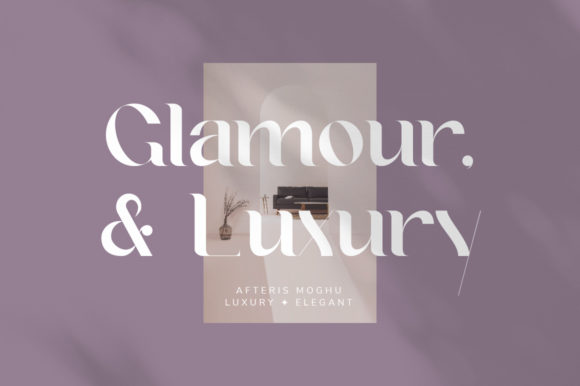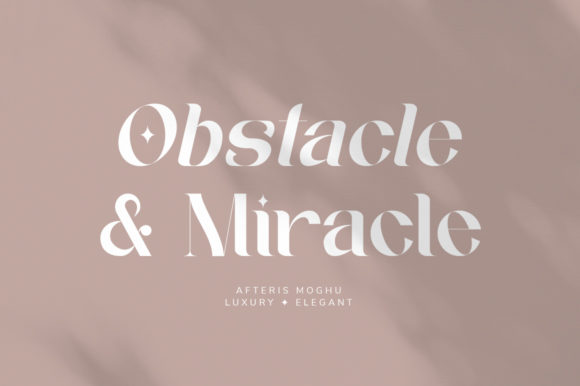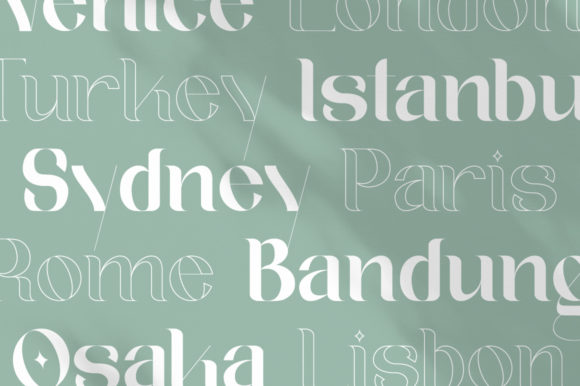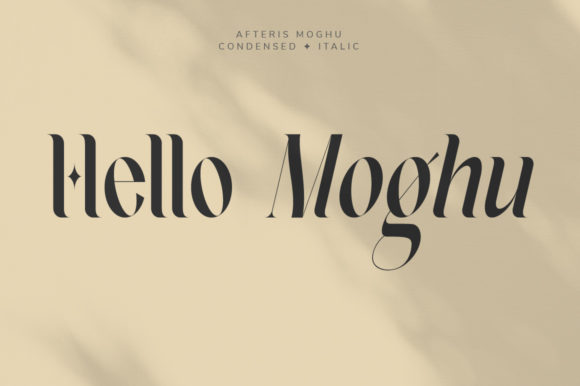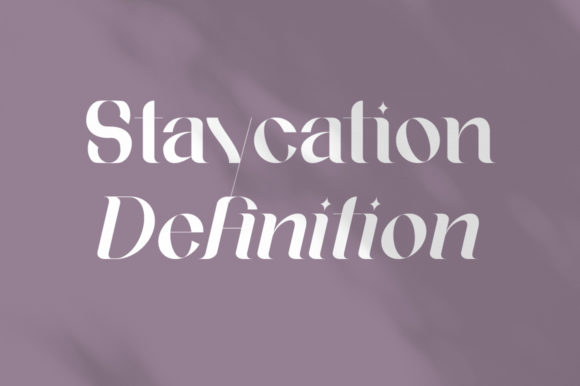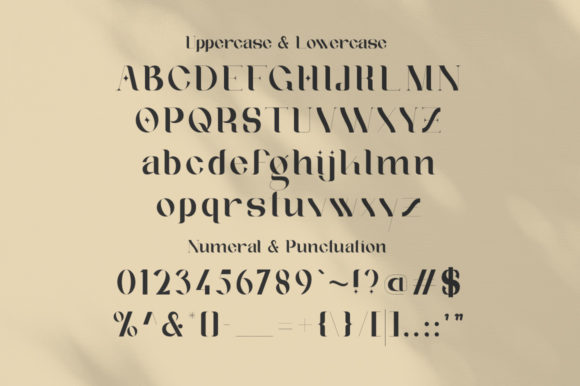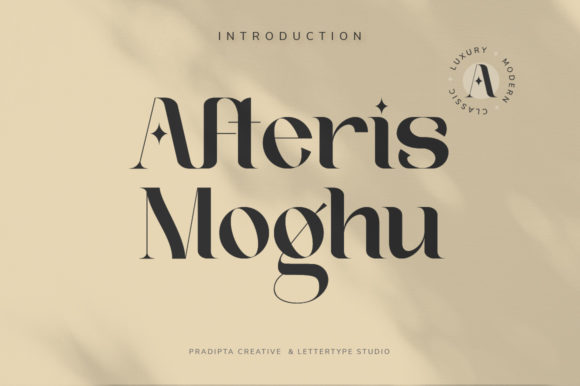
Introducing Afteris Moghu: The Luxurious Modern Serif Font
In the world of typography, a font can make or break a design. For crafters and designers looking to add a touch of luxury and sophistication to their creations, Afteris Moghu is a game-changer. This modern serif font is imposing, featuring uniquely shaped letters that effortlessly elevate any project to new heights. In this article, we’ll dive into the world of Afteris Moghu, exploring its features, benefits, and uses.
The Distinctive Characteristics of Afteris Moghu
Afteris Moghu is a masterclass in modern serif font design. Its luxurious feel is instantly apparent, with each letter boasting a unique shape that sets it apart from more traditional fonts. The serifs are carefully crafted, adding a touch of elegance and refinement to any text. Whether you’re working on a branding project, a website, or a print design, Afteris Moghu’s distinctive characteristics make it an excellent choice.
Why Choose Afteris Moghu?
So, what sets Afteris Moghu apart from other fonts on the market? Here are just a few reasons why designers and crafters are falling in love with this luxurious font:
- Unparalleled versatility: Afteris Moghu’s unique shape and luxurious feel make it suitable for a wide range of projects, from high-end branding to elegant wedding invitations.
- Ease of use: Despite its complex appearance, Afteris Moghu is surprisingly easy to use, even for those without extensive design experience.
- High-quality design: Each letter has been carefully crafted to ensure a high level of quality, making it perfect for both digital and print applications.
Exploring the Benefits of Afteris Moghu
Afteris Moghu offers a range of benefits for designers and crafters. Here are just a few:
- Add a touch of luxury: With Afteris Moghu, you can instantly elevate your designs and add a touch of sophistication.
- Stand out from the crowd: This font’s unique shape and luxurious feel ensure that your designs will stand out in a crowded marketplace.
- Perfect for branding: Afteris Moghu’s high-end feel makes it an excellent choice for branding projects, helping to establish your brand as luxurious and sophisticated.
Using Afteris Moghu in Your Designs
So, how can you start using Afteris Moghu in your designs? Here are a few ideas to get you started:
- Branding projects: Use Afteris Moghu to create luxurious business cards, letterheads, and packaging.
- Wedding invitations: Add a touch of elegance to your wedding invitations and stationery with this beautiful font.
- Web design: Use Afteris Moghu to create a sophisticated and high-end website that reflects your brand’s luxury credentials.
Tips and Tricks for Getting the Most from Afteris Moghu
To get the most from Afteris Moghu, here are a few tips and tricks to keep in mind:
- Experiment with font sizes: Afteris Moghu looks stunning in large font sizes, but it can also be effective in smaller sizes.
- Pair with complementary fonts: Try pairing Afteris Moghu with sans-serif fonts or script fonts to create a unique and eye-catching combination.
- Pay attention to kerning: As with any font, kerning is essential to ensure that your text looks professional and polished.
Afteris Moghu is a game-changing font that offers a unique blend of luxury and sophistication. With its imposing yet elegant design, this modern serif font is perfect for designers and crafters looking to add a touch of high-end style to their creations. Whether you’re working on a branding project, a website, or a print design, Afteris Moghu is an excellent choice. So why not give it a try and see the difference it can make?